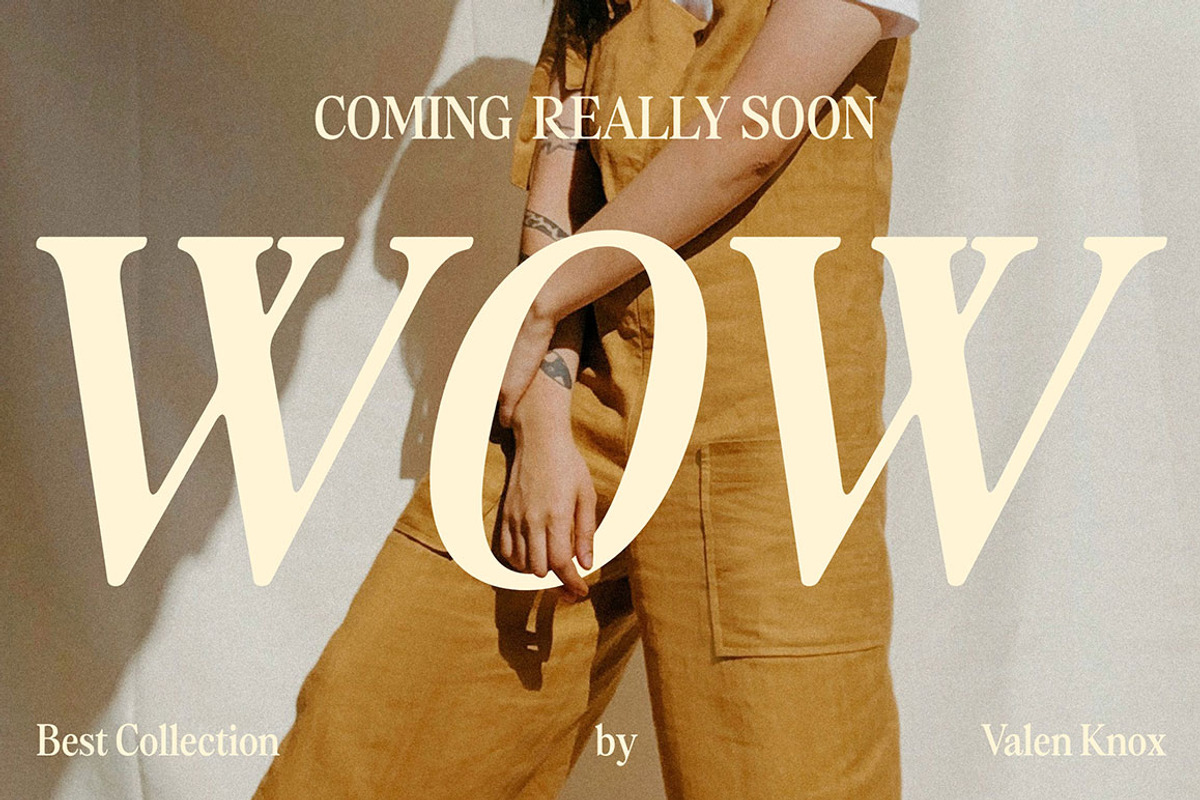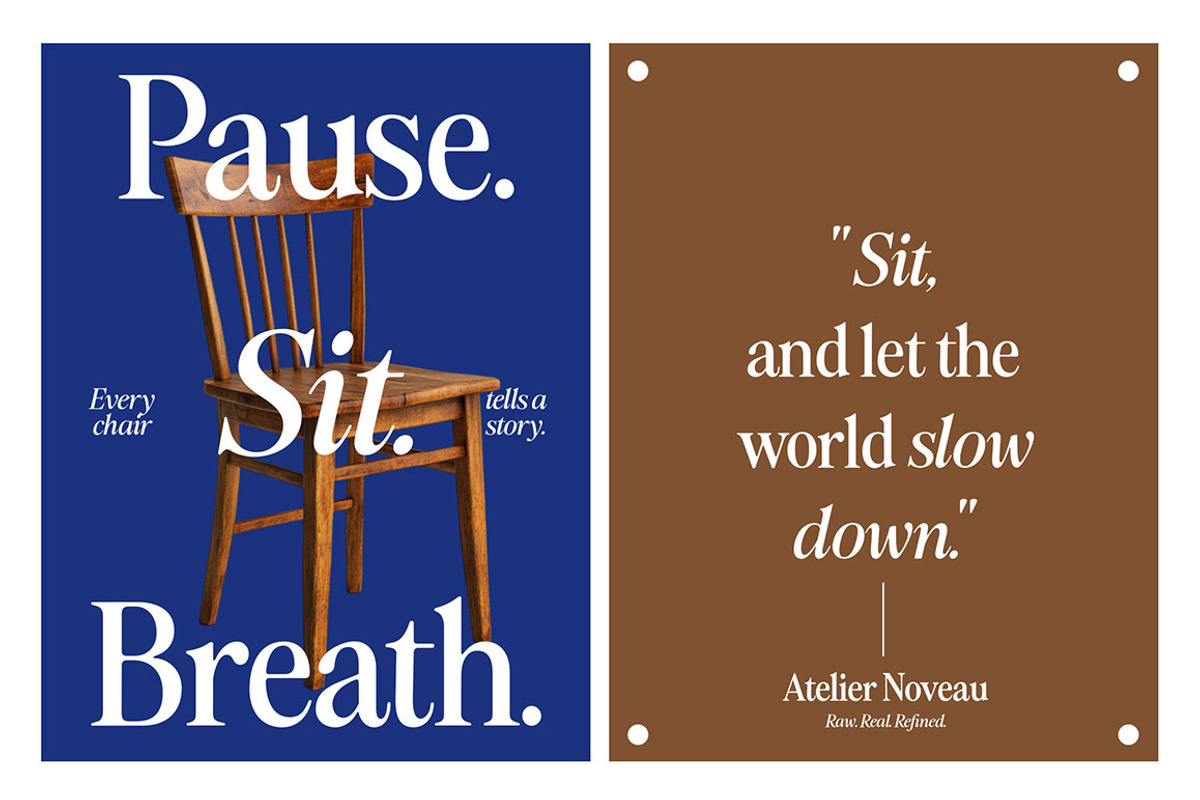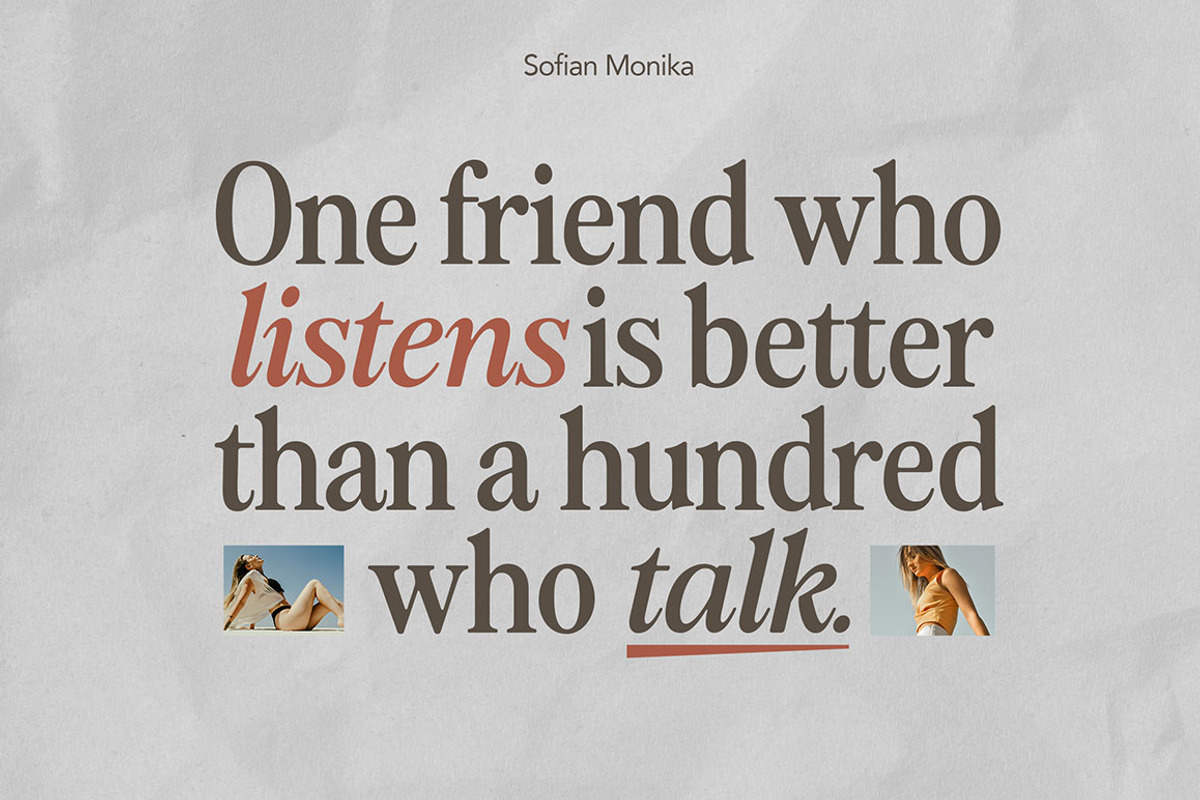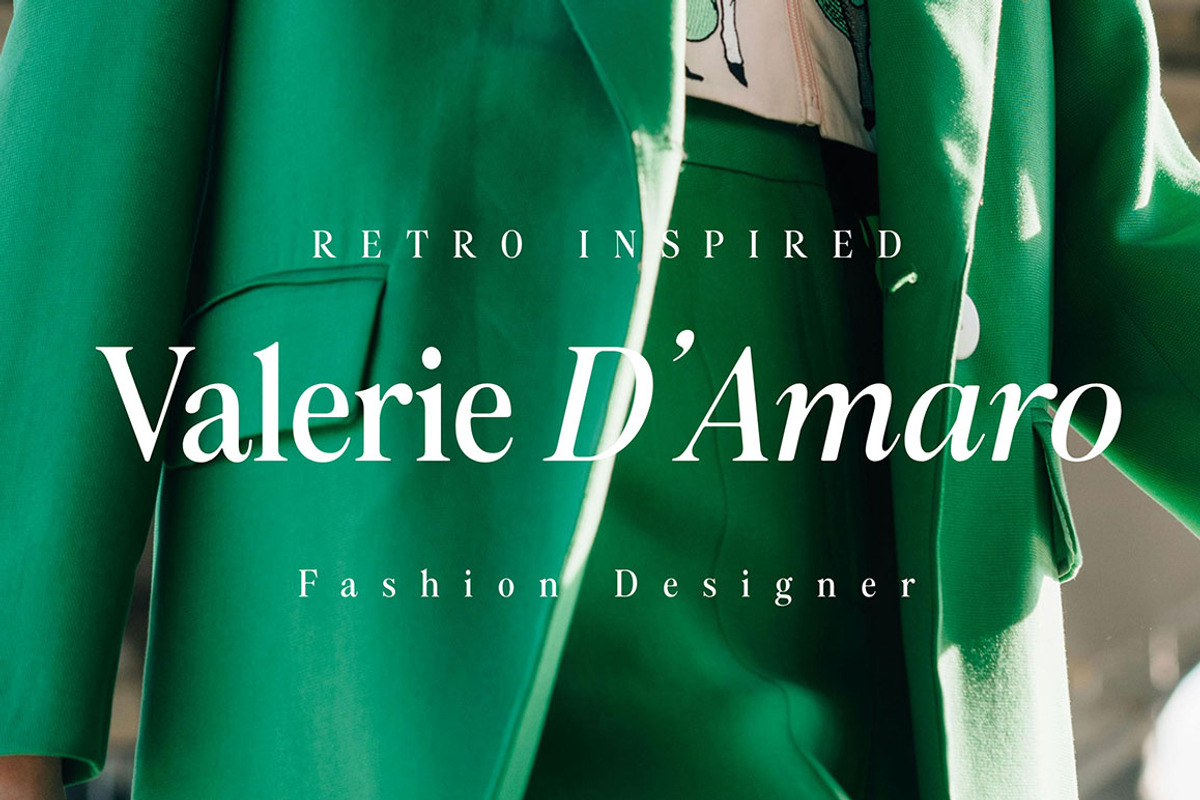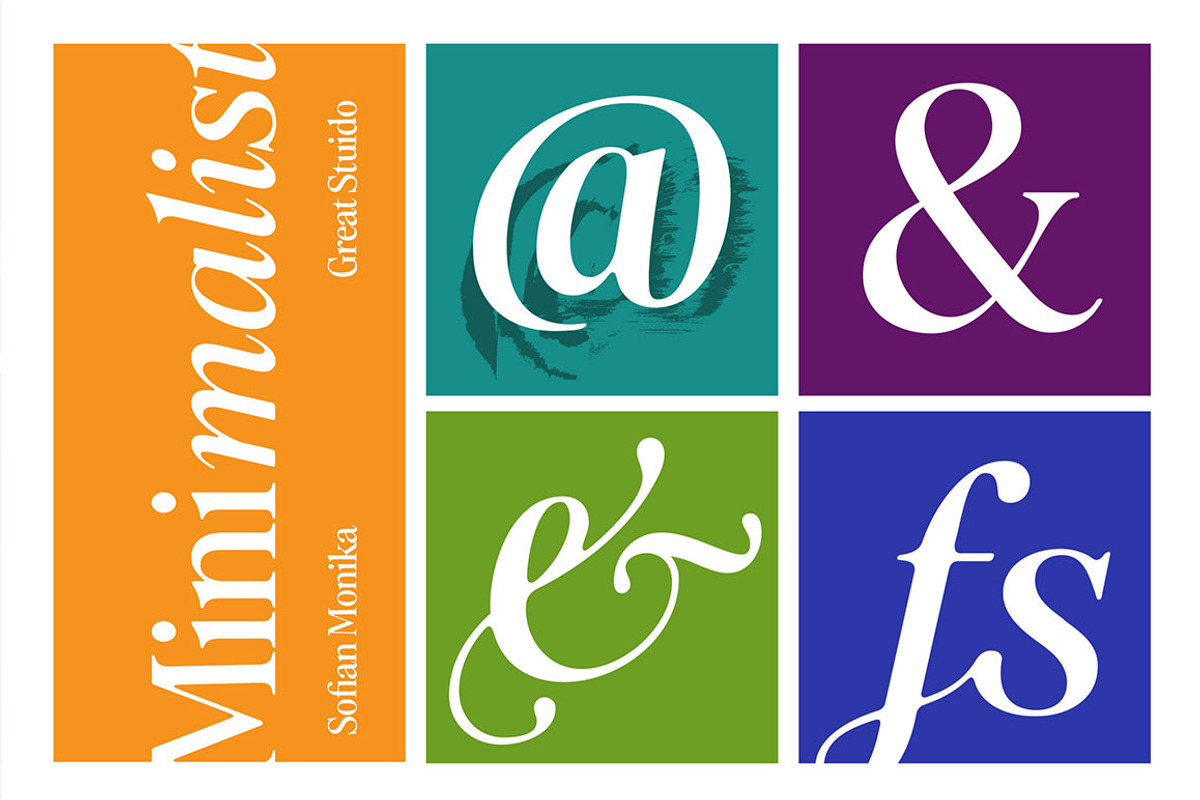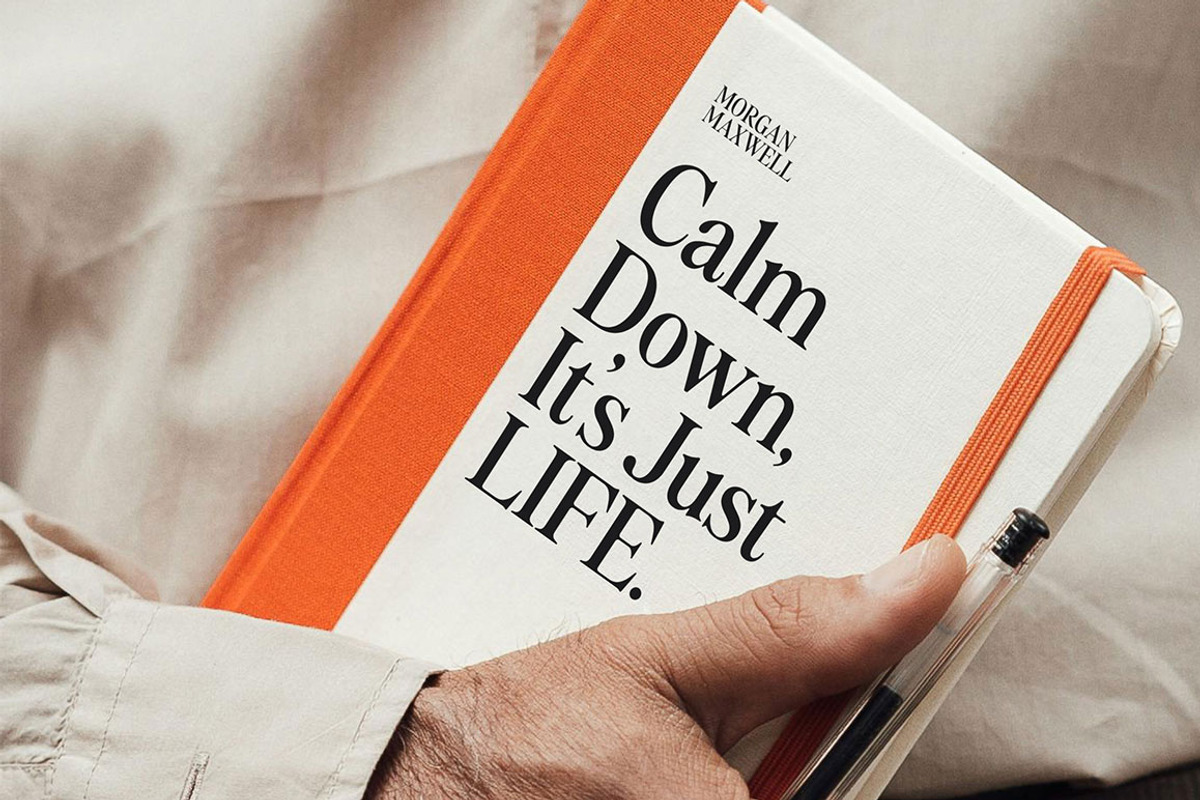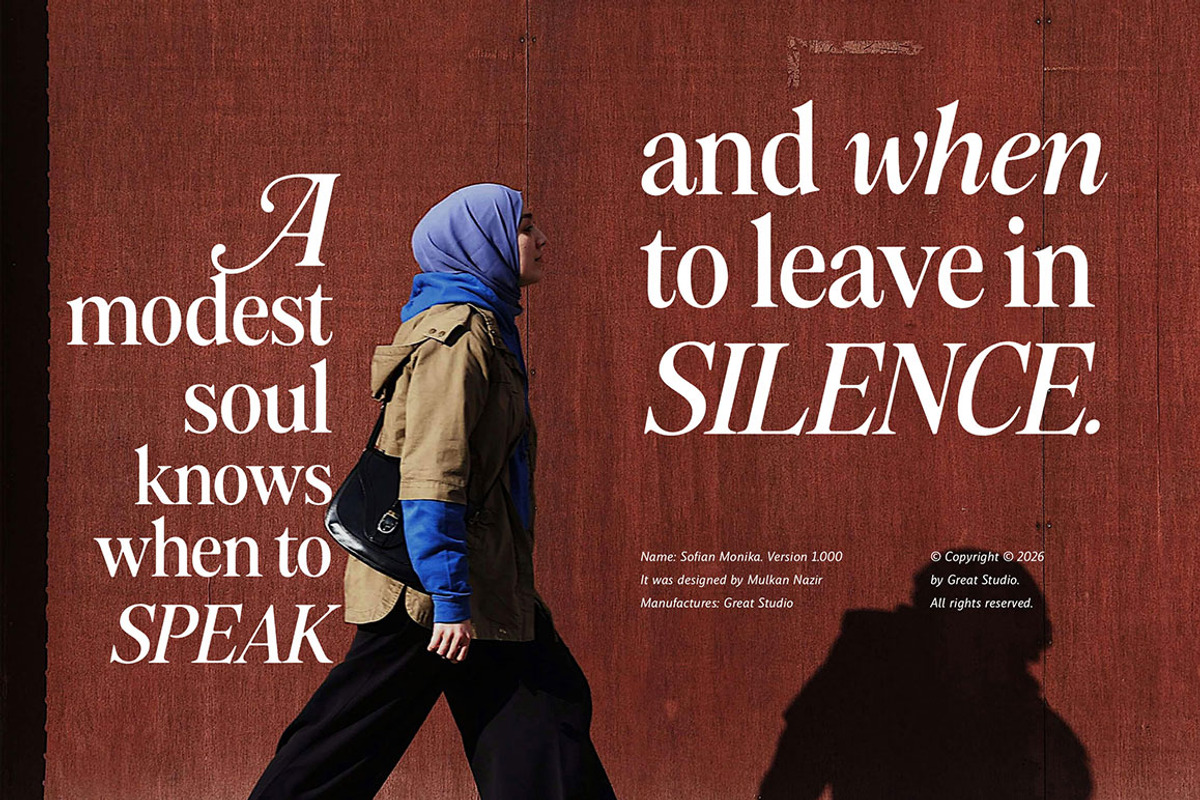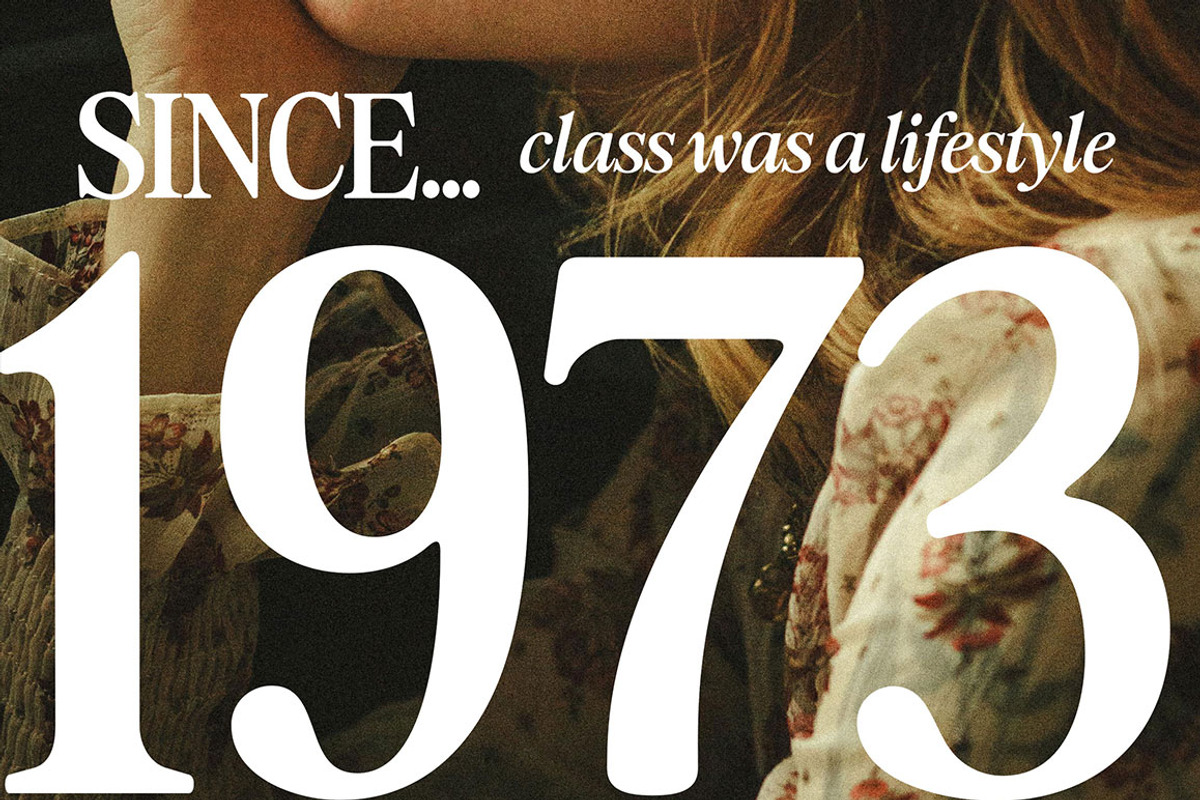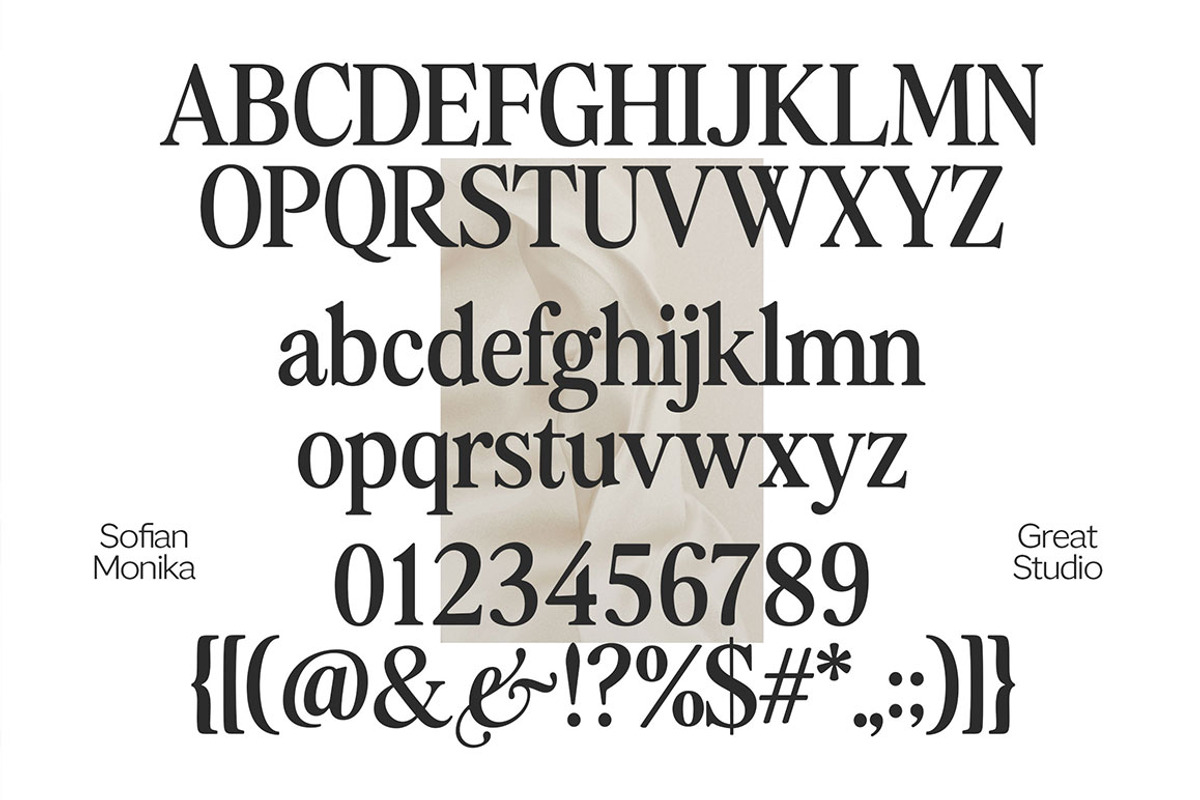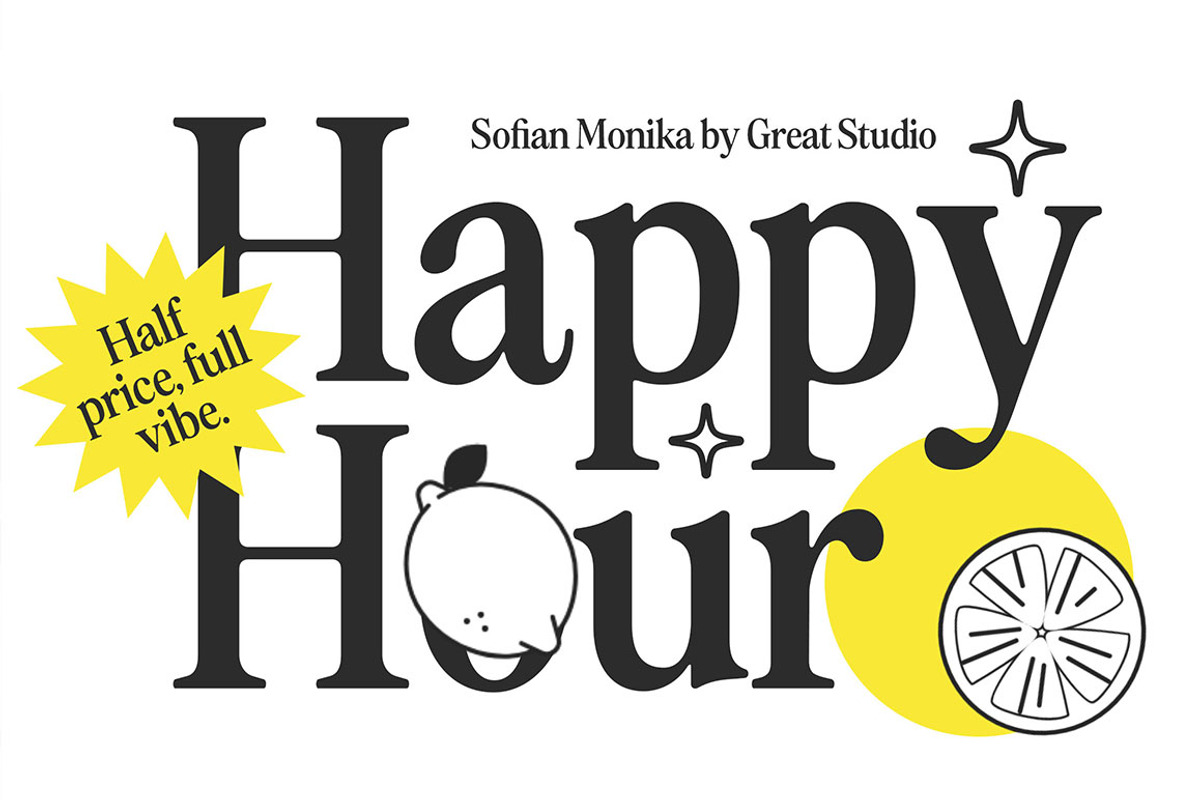
Sofian Monika Serif
Sofian Monika is a classic-style serif font that exudes an elegant, warm, and memorable feel. With smooth yet firm letterforms, as well as a touch of traditional curved lines, this font revives the beauty of past designs in a modern look.
This font combines strong serif elements with typical old style characteristics: medium contrast, slanted axis, and decorative details at the ends of letters. It is suitable for use in nostalgic themed projects, classic editorials, luxury branding, book design, invitations, and more.
Sofian Monika Regular
Sofian Monika Italic
Sofian Monika Condensed
Sofian Monika Condensed Italic
Sofian Monika Display
Sofian Monika Display Italic
Sofian Monika Display Condensed
Sofian Monika Display Condensed Italic
Classic and timeless serif style
Suitable for headlines, editorials, and visual identities
Has a refined and elegant character
Gives a warm and emotional impression in design
Sofian Monika is not just a font, but a feeling that is evoked through letterforms.